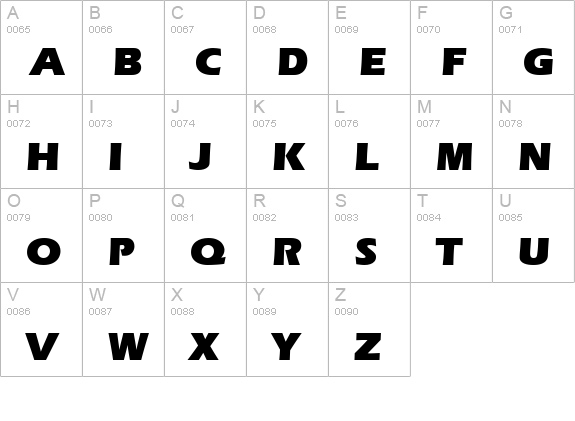
ErieBlack Bold Font Details
ErieBlack Bold is a strong, high-contrast variant in the ErieBlack typeface family \xE2\x80\x94 well suited to headlines, attention-grabbing titles, and strong calls-to-action.
ErieBlack Bold font is a striking and bold typeface that exudes a sense of strength and modernity. With its clean lines and powerful presence, this font is perfect for making a statement in your designs. Whether you're creating a logo, poster, or any other graphic project, ErieBlack Bold will help you stand out from the crowd. The best part is that ErieBlack Bold font is available for free download at FontsMarket.com. You can easily access this versatile font and use it in your personal and commercial projects without any restrictions. Don't miss out on this opportunity to enhance your designs with the bold and impactful ErieBlack Bold font. Download it today and unleash your creativity!